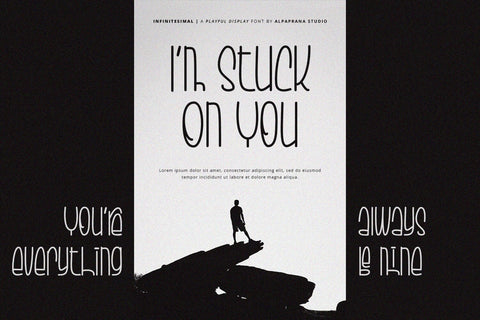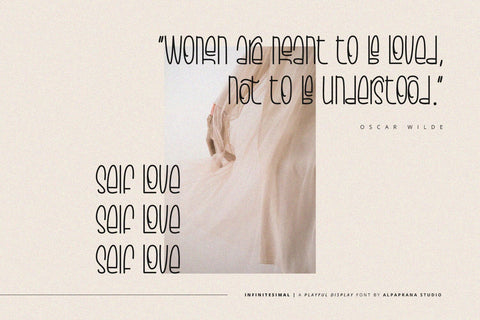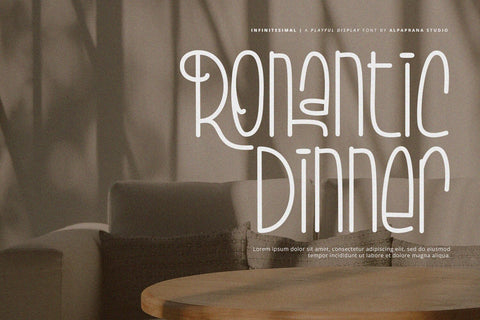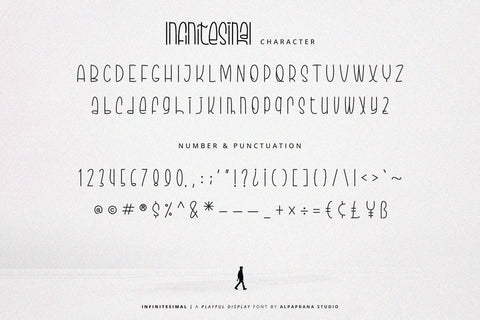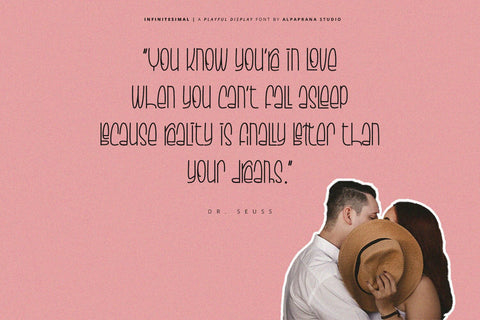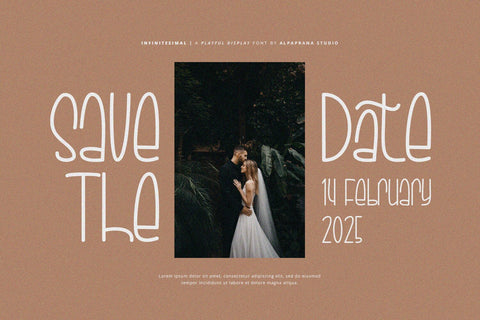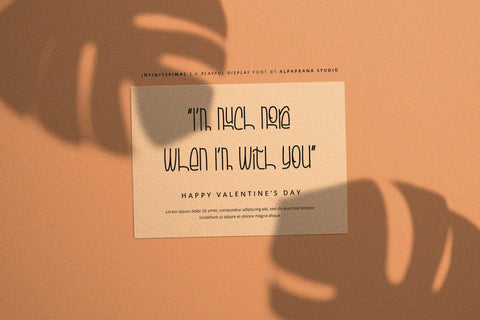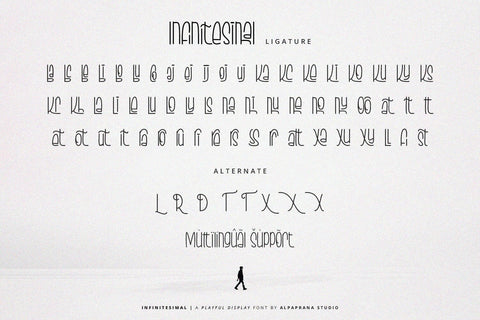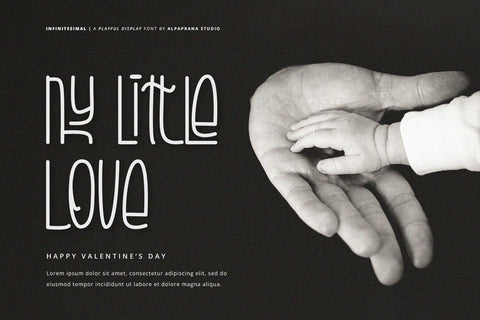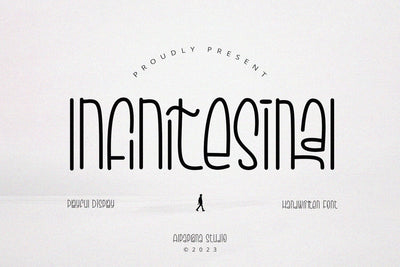
Infinitesimal - Display Font
Infinitesimal is a display font with romantic and modern feels. It will be perfectly used for Branding, Logo Design, Lettering, Logotype, Clothing, Poster, magazine, packaging, posters, shopping bags, t-shirts, book covers, photography, special events and other design project.